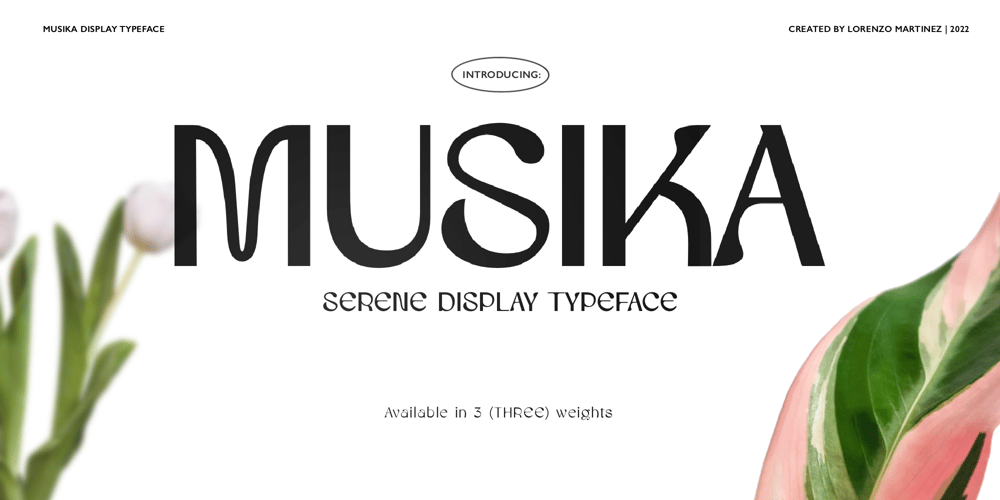
Musika Font Family was designed by Lorenzo Gabriel Martinez and published by Lurinzu Studios. Musika contains 3 styles and family package options. Musika” is a serene and elegant display typeface that is inspired by the vibe of soft jazz. Serene, elegant, soothing, somewhat sensual and at the same time feels like a warm hug. This typeface is made with the intention to be used in both titles and body text. The bold weight (even the light weight could also be used as a title card) holds really well as a title while the lighter weights (regular and light) can be used in body text.*This font includes letters, numbers, multi-language, and all essential marks needed.* Three (3) weights are currently available. (Light, Regular and Bold)